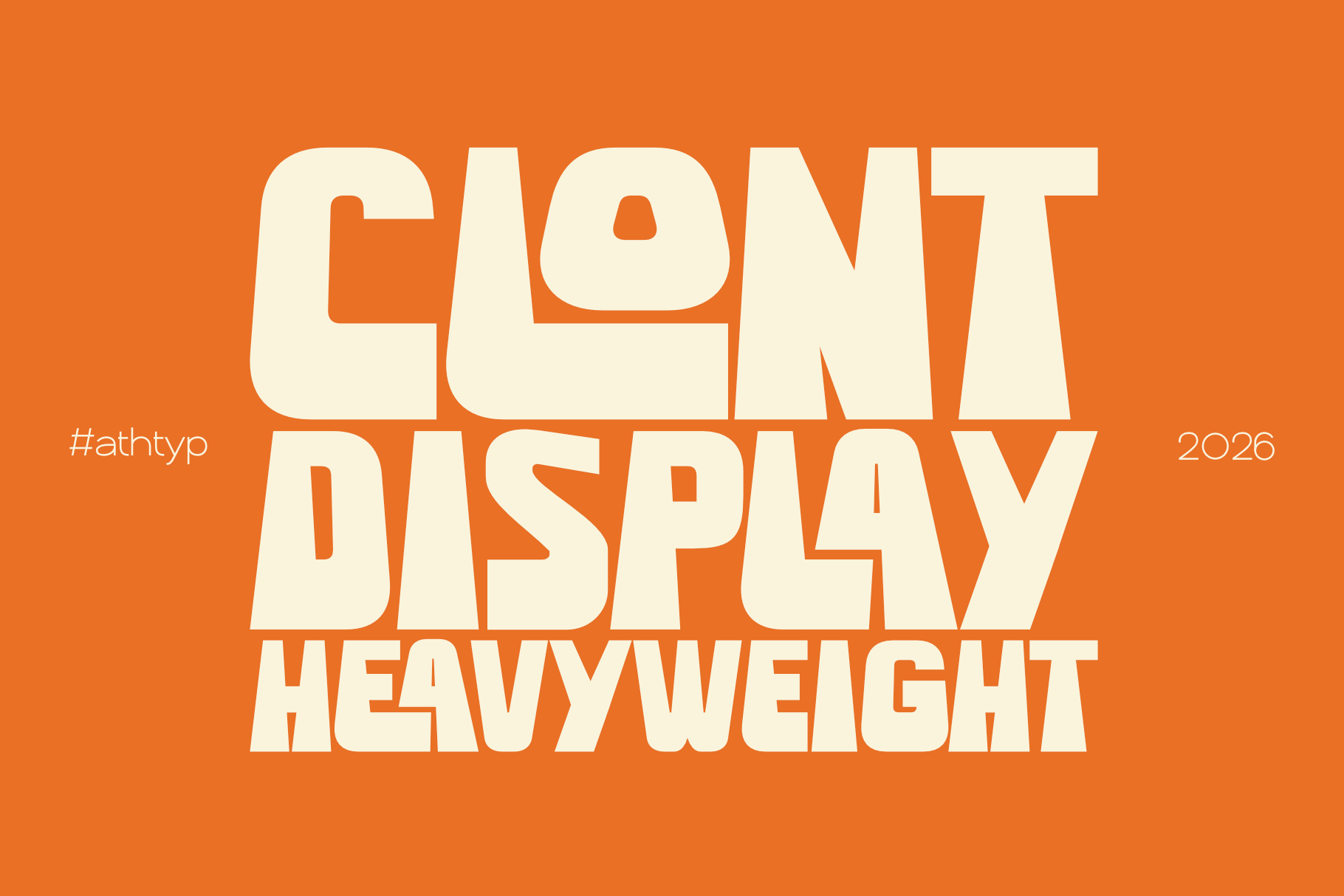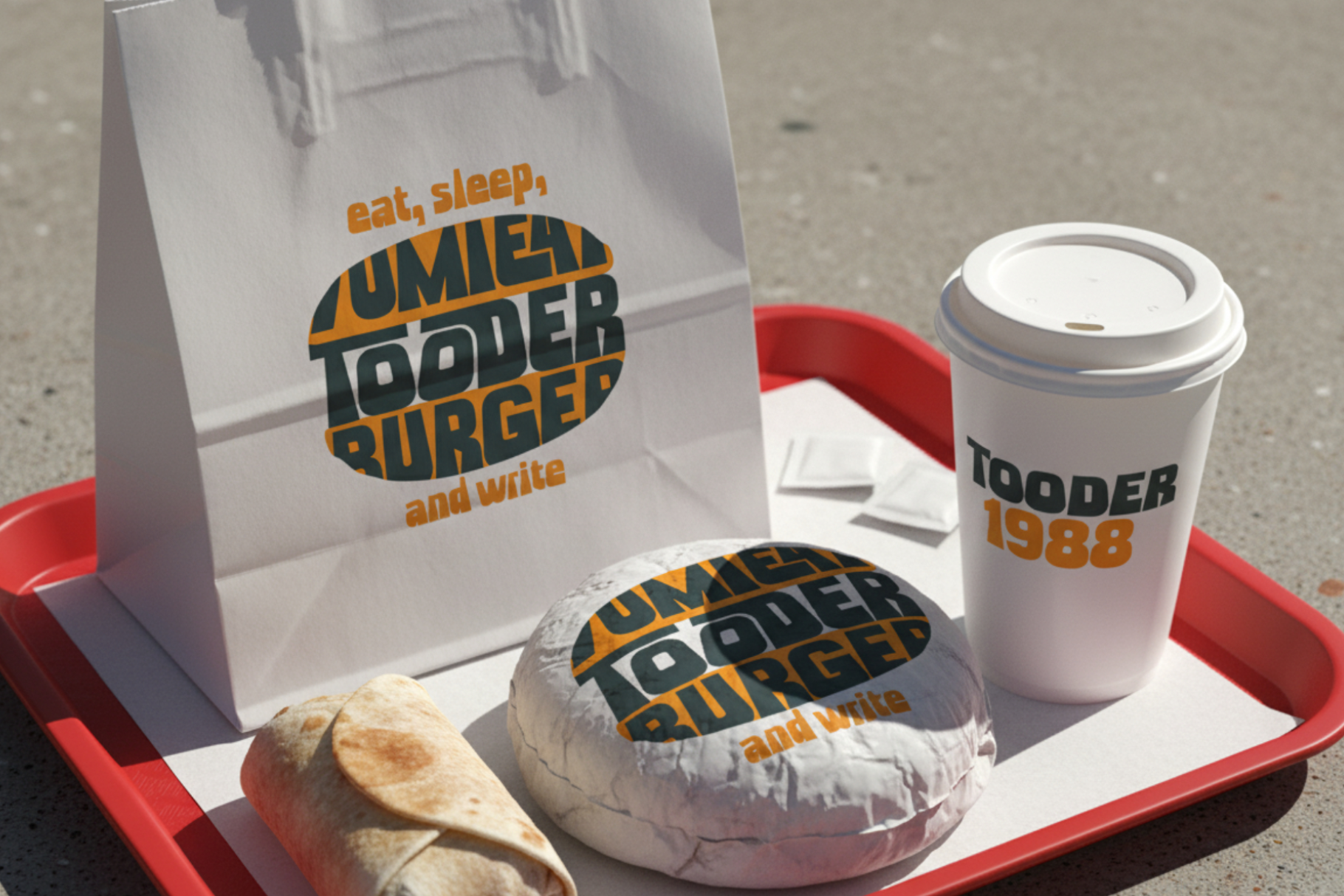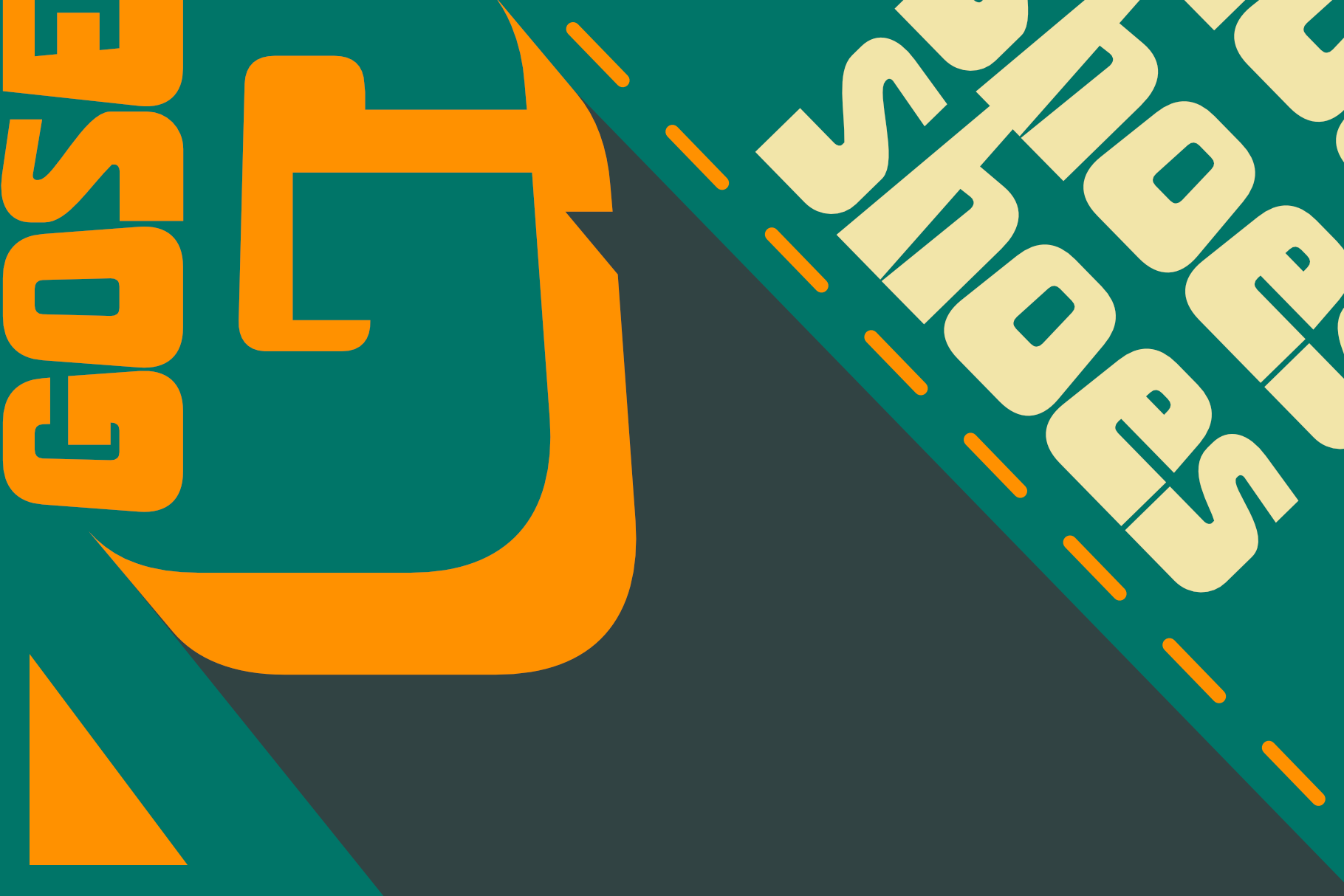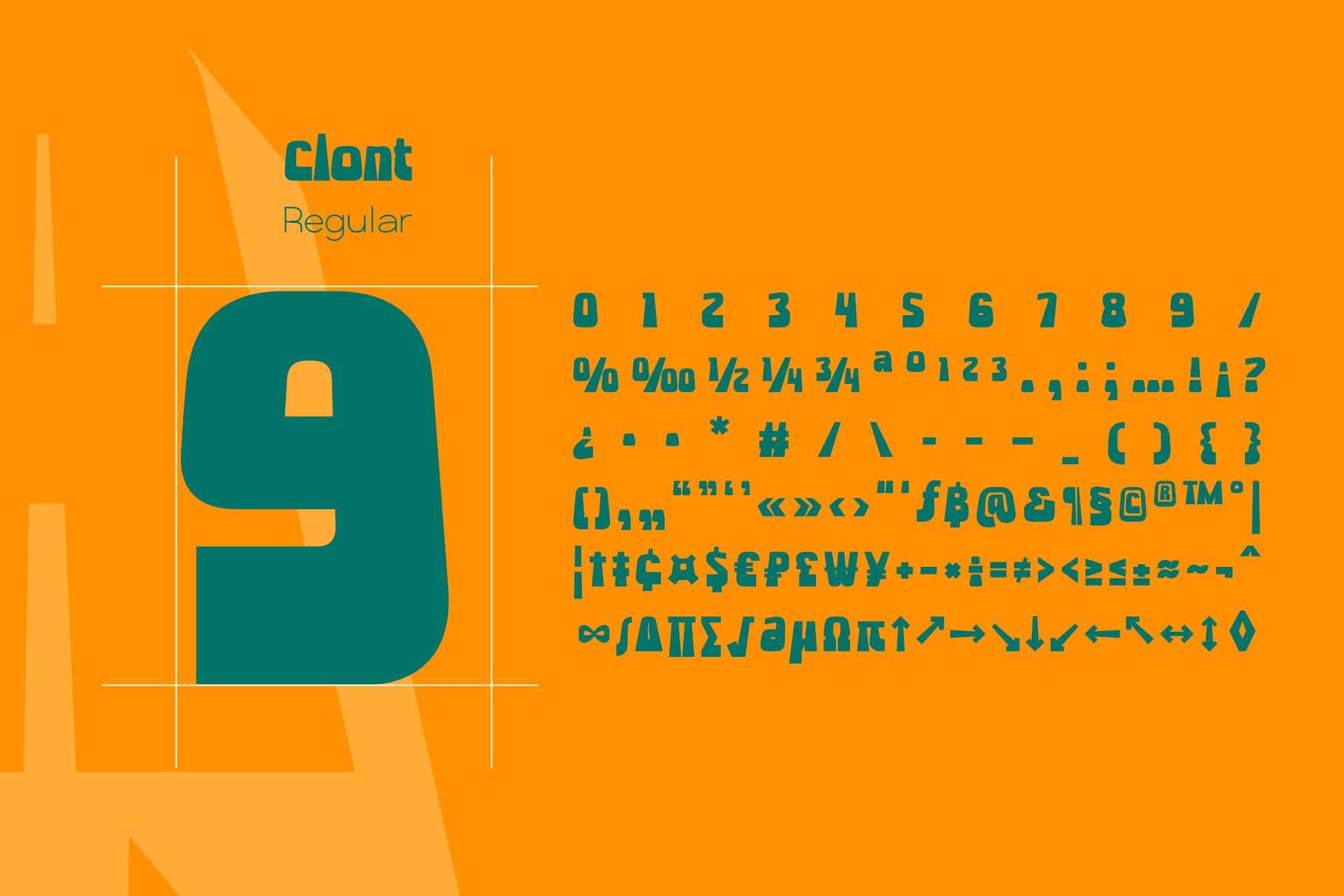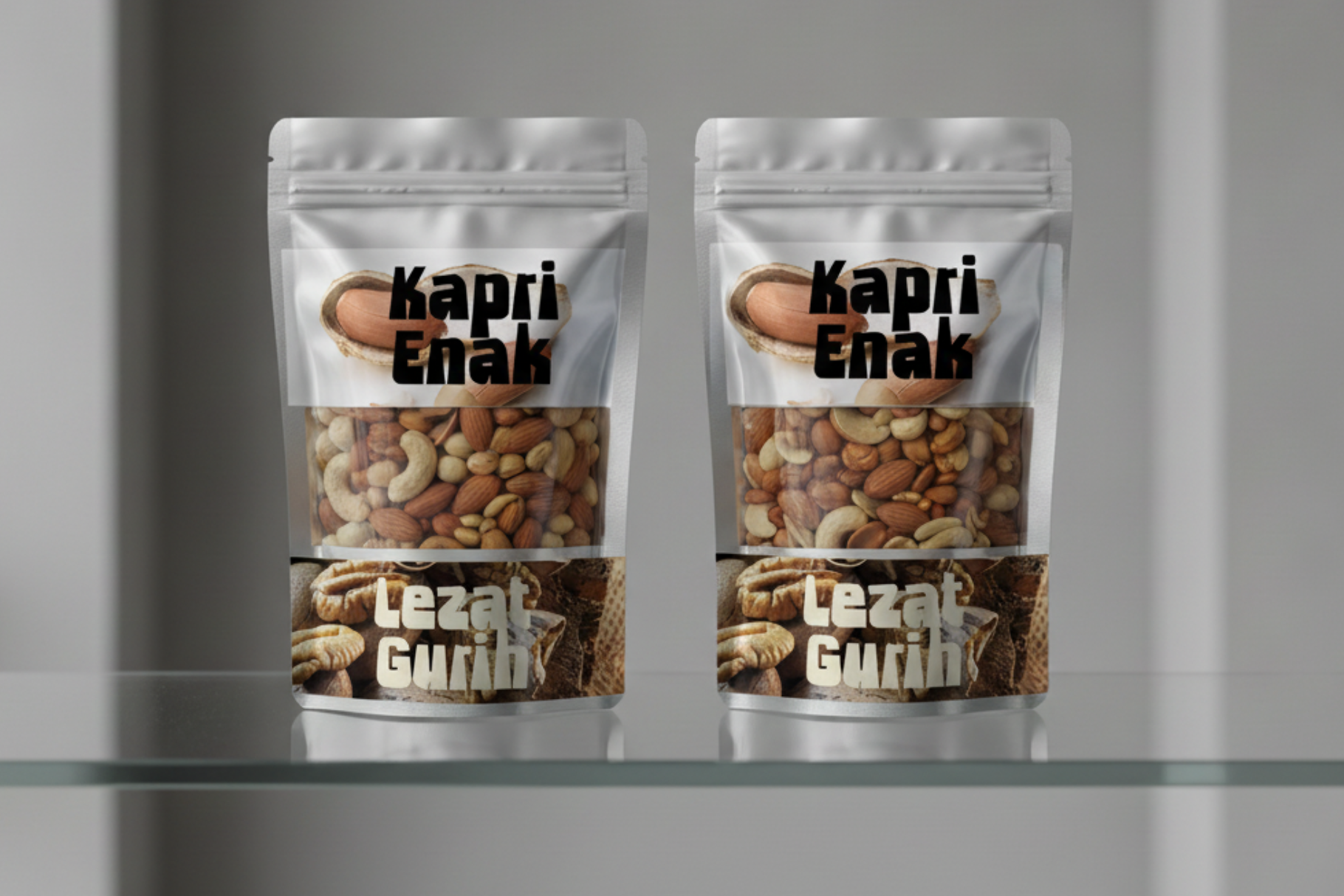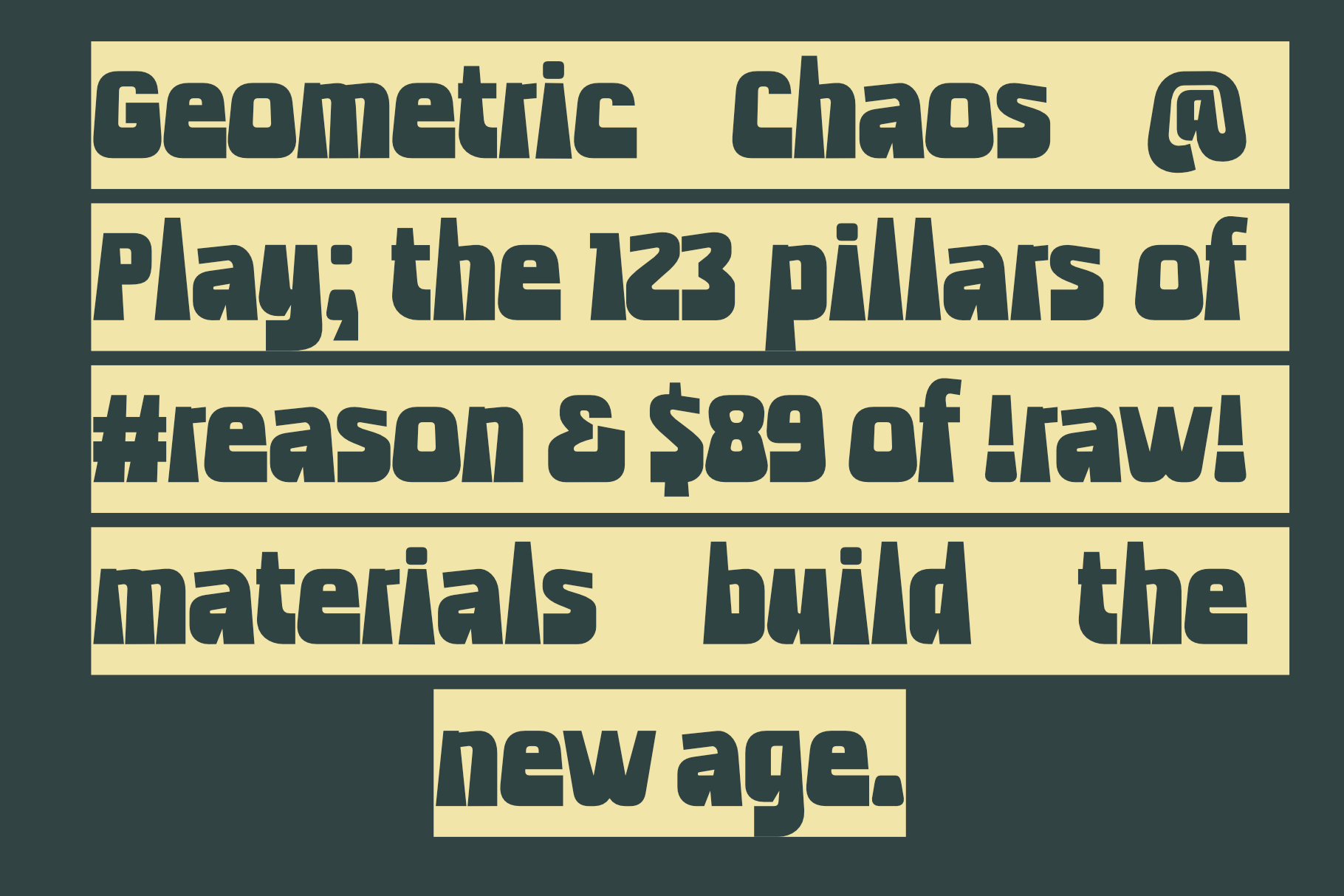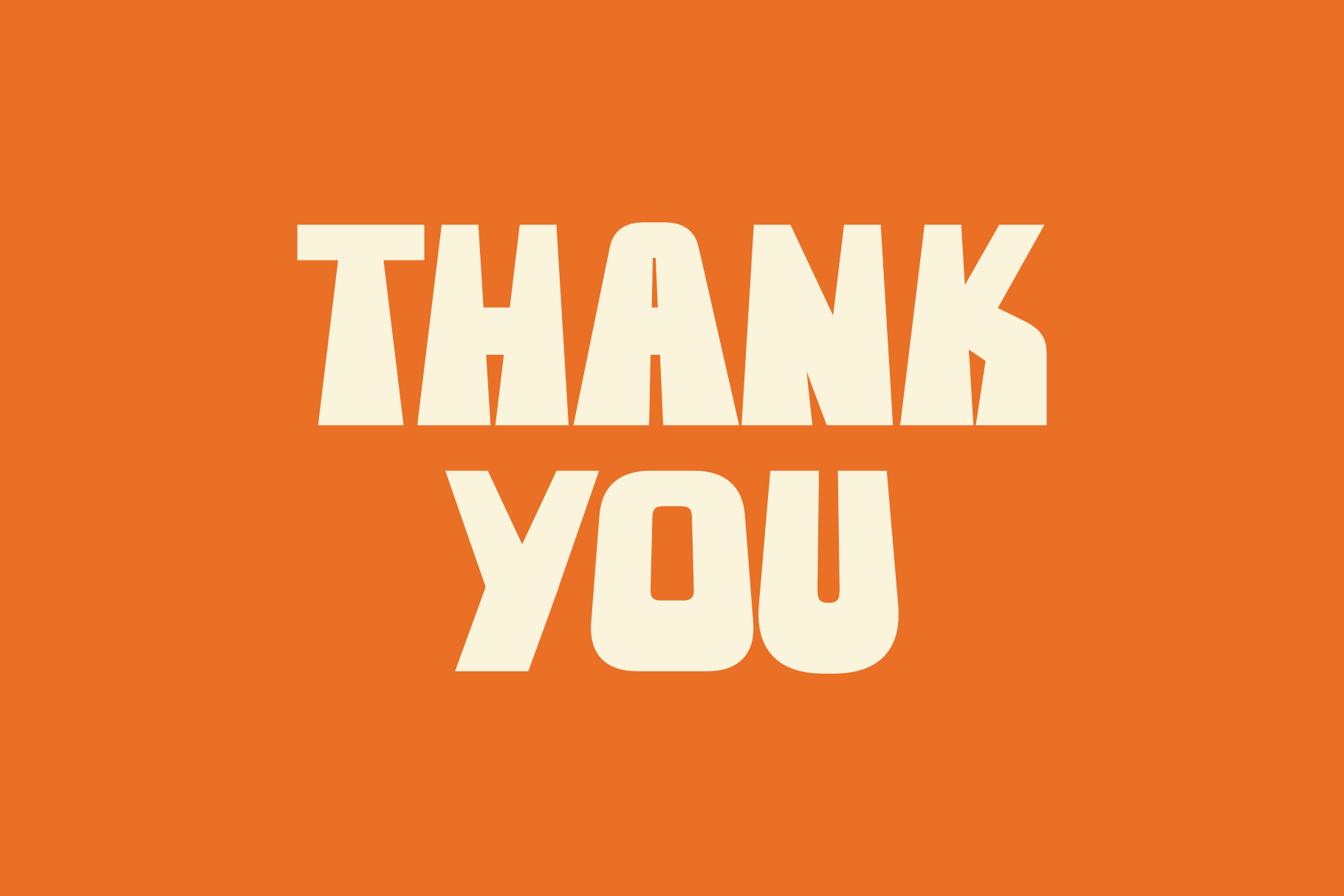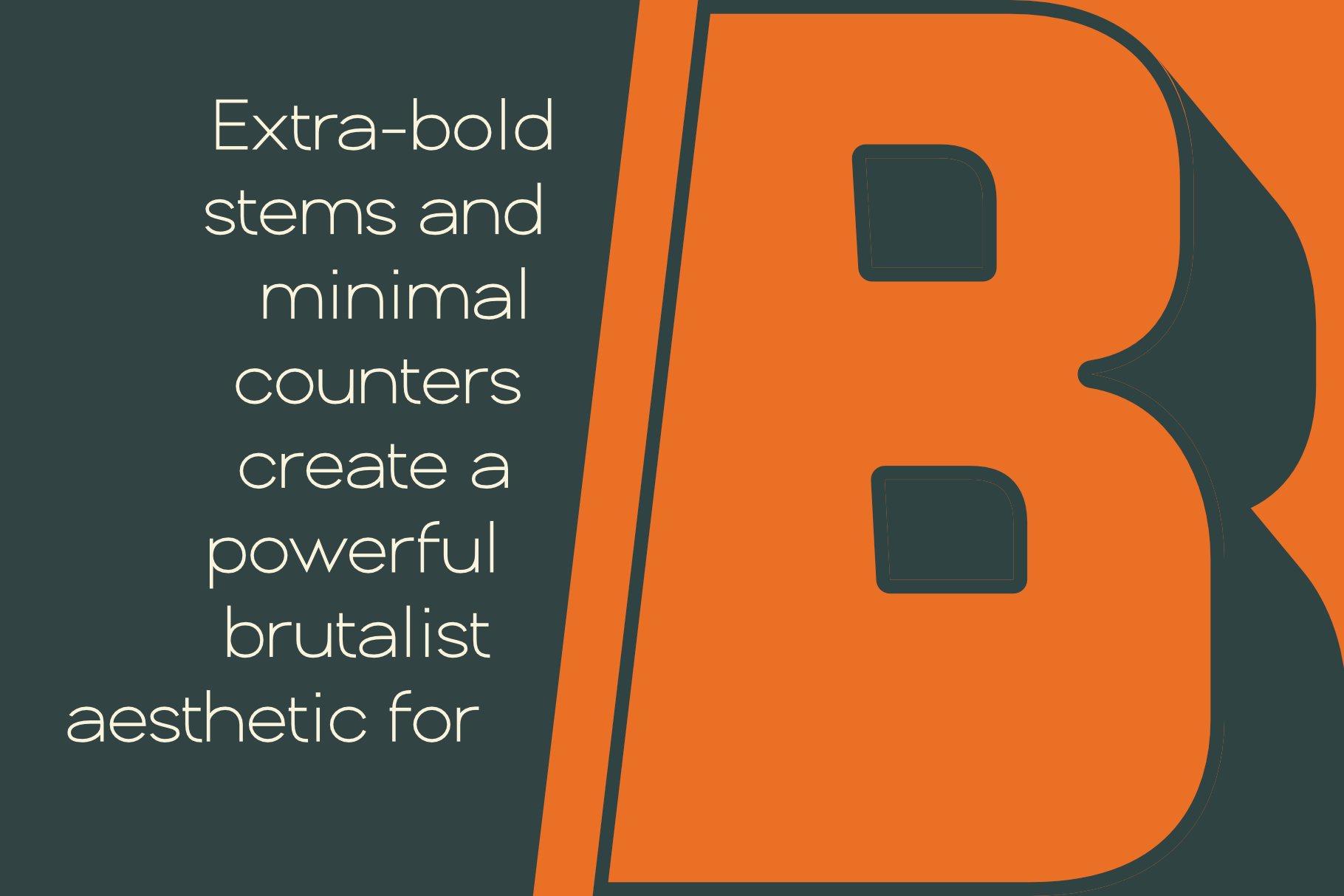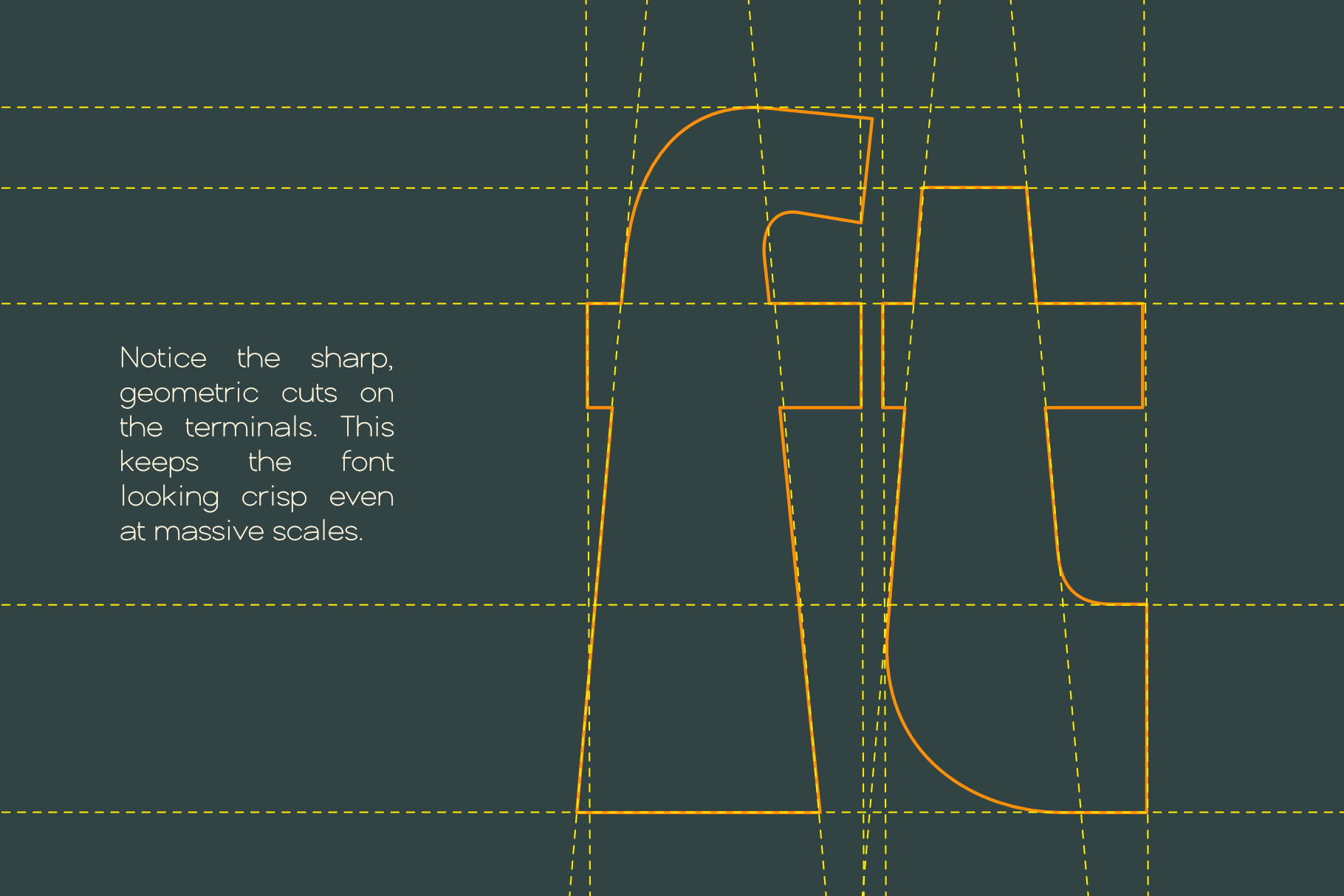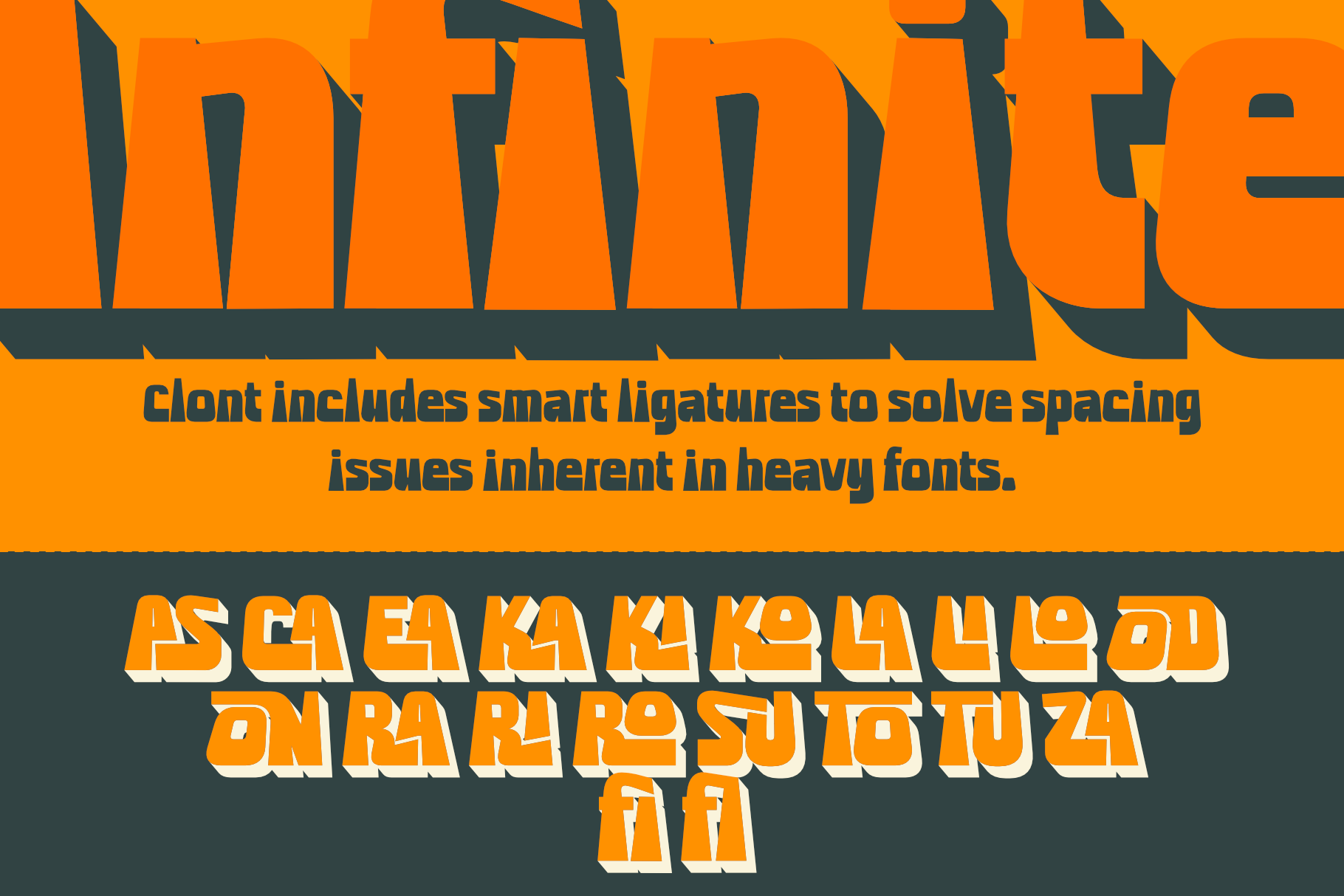
Clont - Display Heavyweight
Clont Display Heavyweight – Brutalist Typeface for Bold Branding
Clont is a powerhouse display face designed by Authentype, specifically crafted for designers who need to command attention. With its ultra-bold weight and minimal negative space, it occupies the ‘Brutalist’ and ‘Modern Bubble’ niche perfectly. Technically, it boasts 417 glyphs and a tall 1140 ascender relative to its 1200 UnitsPerEm, giving it a towering presence on the page.
The Clont font features deep ink traps and sharp terminals that prevent the heavy letterforms from becoming muddy in print. It includes a comprehensive set of 15+ ligatures and wide language support, making it as functional as it is visually striking for posters, streetwear branding, and editorial headers.